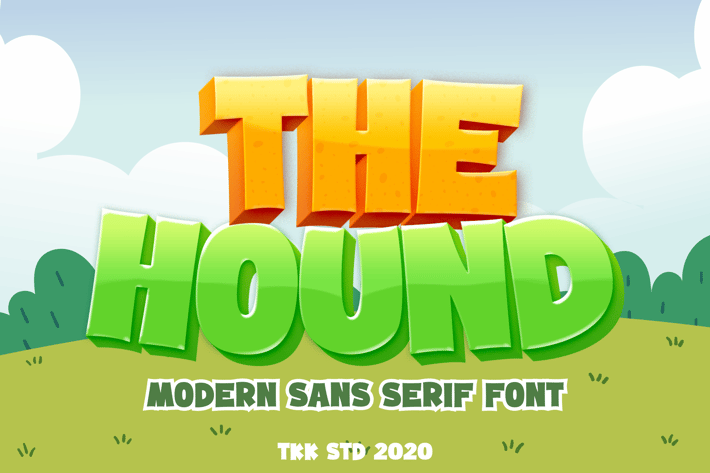
The Hound - Gaming cartoon font
The Hound is a modern cartoon display font designed with bold contrast, soft rounded edges, and a playful rhythm that keeps young eyes engaged. Its bouncy baseline and thick proportion make it not only fun to look at but also highly readable, even at smaller sizes. Inspired by children's adventures and educational content, the letterforms are geometric yet whimsical, striking a balance between visual fun and functional clarity.
The font’s approachable tone and cheerful forms make it ideal for any design geared toward kids, families, or playful branding. Whether you're designing classroom materials or animated app UIs, The Hound adds life and accessibility to your work.
The Hound is tailored for children’s media, educational posters, e-learning games, animated series, and wholesome branding. Its joyful tone connects emotionally with young audiences while offering a professional layout foundation for designers. Whether for a mobile game title, a learning platform banner, or character-driven merchandise, this typeface brings instant charm and clarity.
What Makes The Hound Stand Out
- Kid-Friendly Structure: Rounded edges and smooth curves ideal for young audiences
- Bold Yet Playful: Strong letter presence balanced with a joyful tone
- Highly Versatile: Works in apps, books, videos, and product packaging
- Easy to Pair: Harmonizes with illustrations, icons, and brand mascots